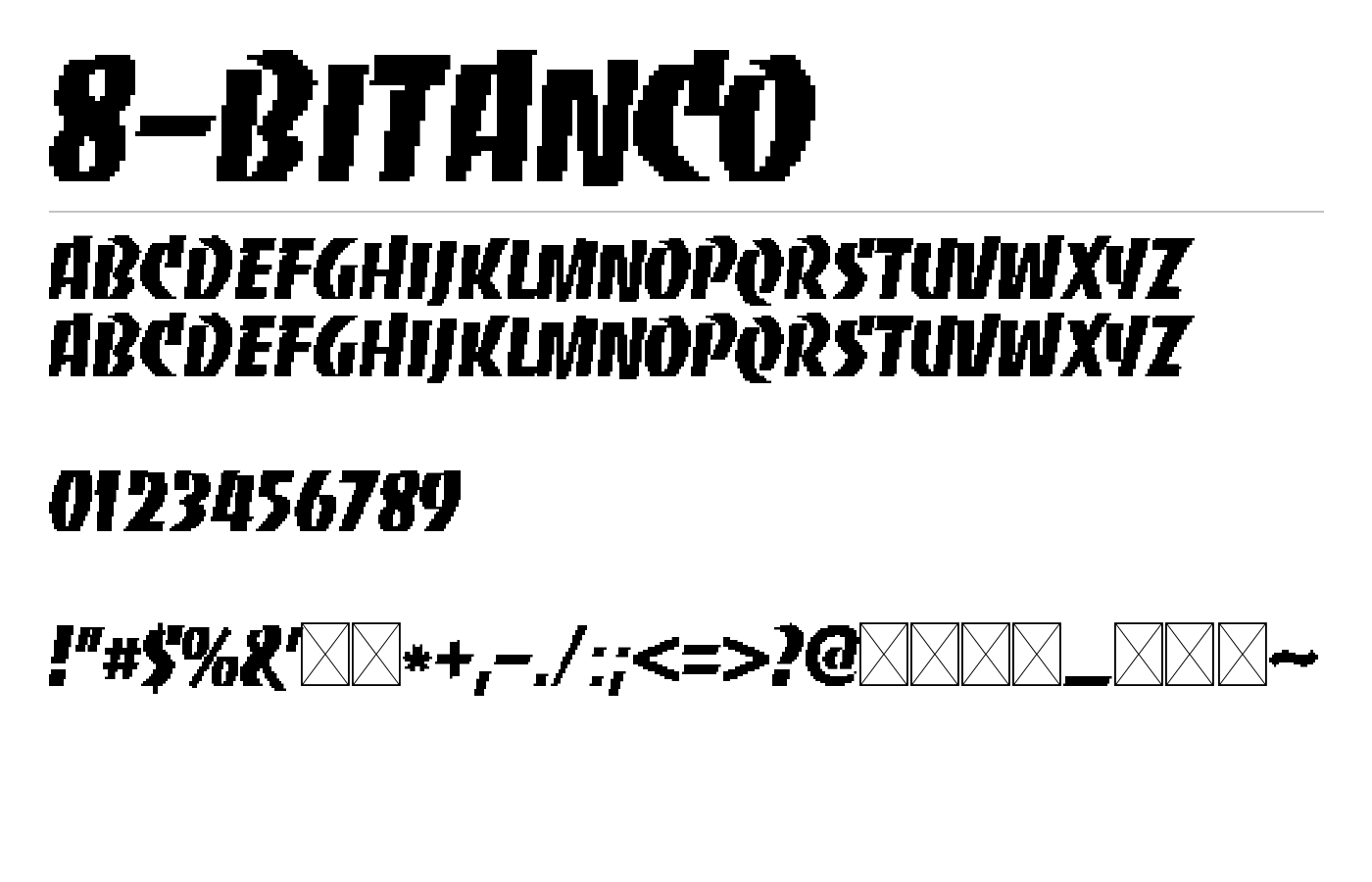
8-Bitanco is a bold, condensed sans serif font with a pixelated, retro gaming aesthetic, evoking 8-bit computer graphics. Its sharp, blocky letterforms and italic slant give it a dynamic, energetic feel, making it perfect for vintage-inspired designs, video game branding, or any project seeking a nostalgic tech vibe. This font works best in headlines, logos, and posters where its unique style can really stand out.
8-Bitanco Font
About 8-Bitanco Font
| Font family | 8-Bitanco Font |
| Designer | Damien Gosset |